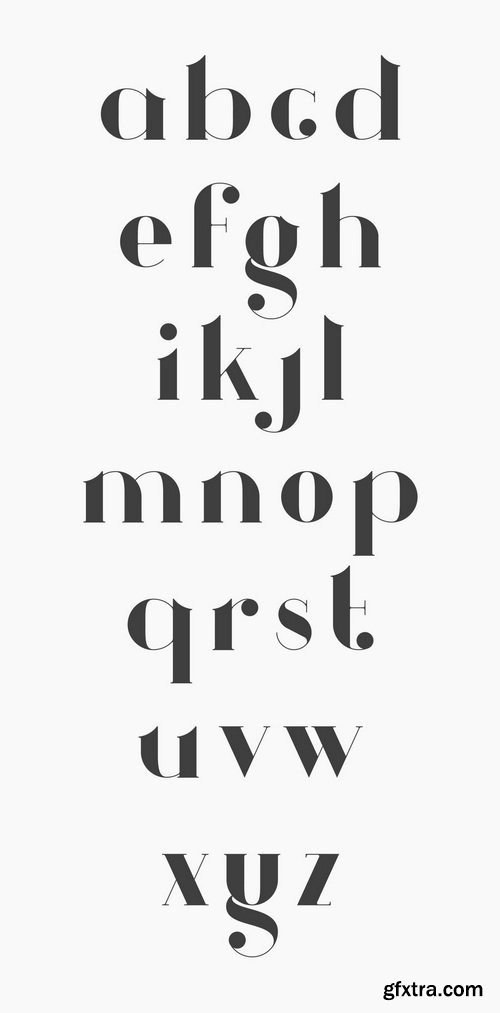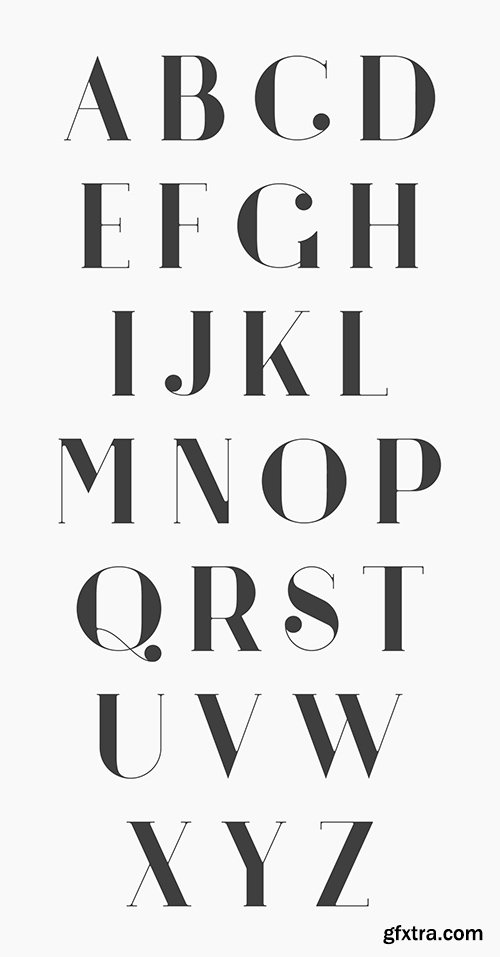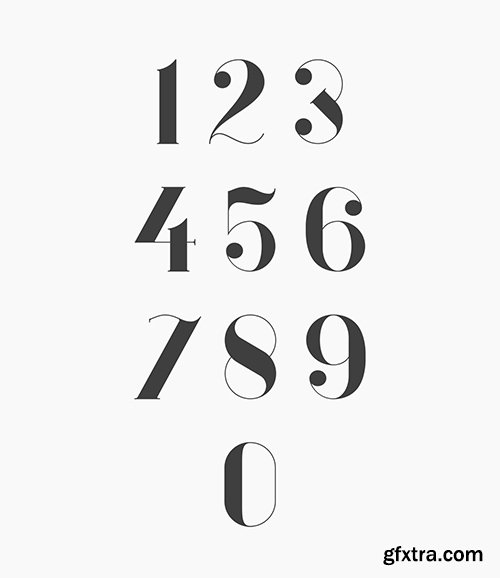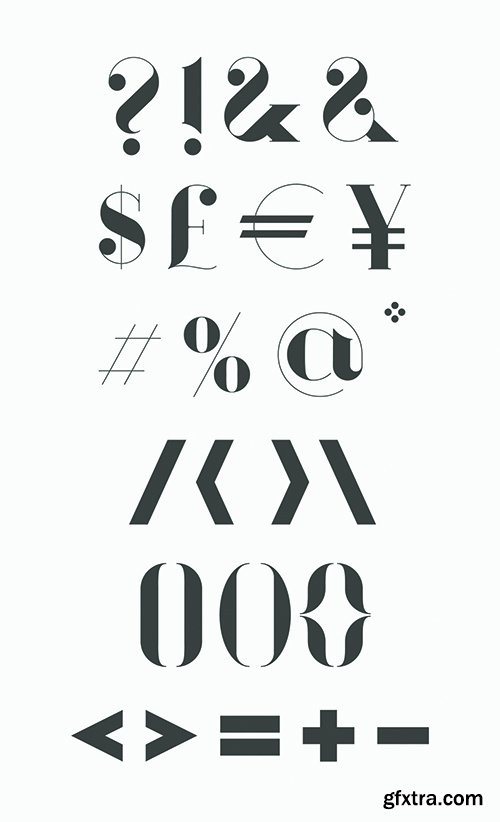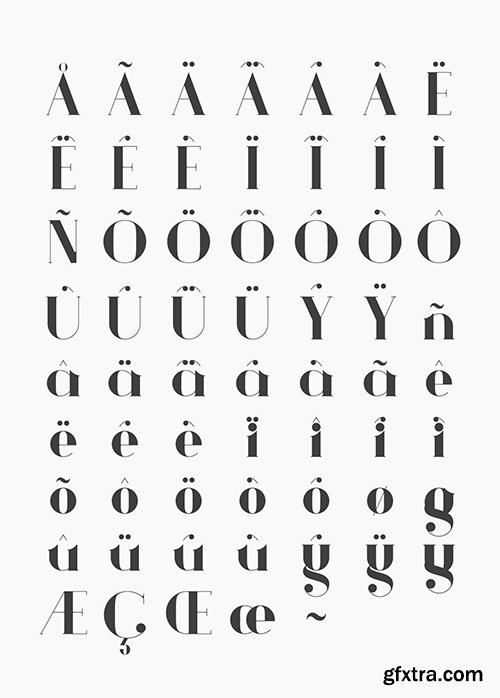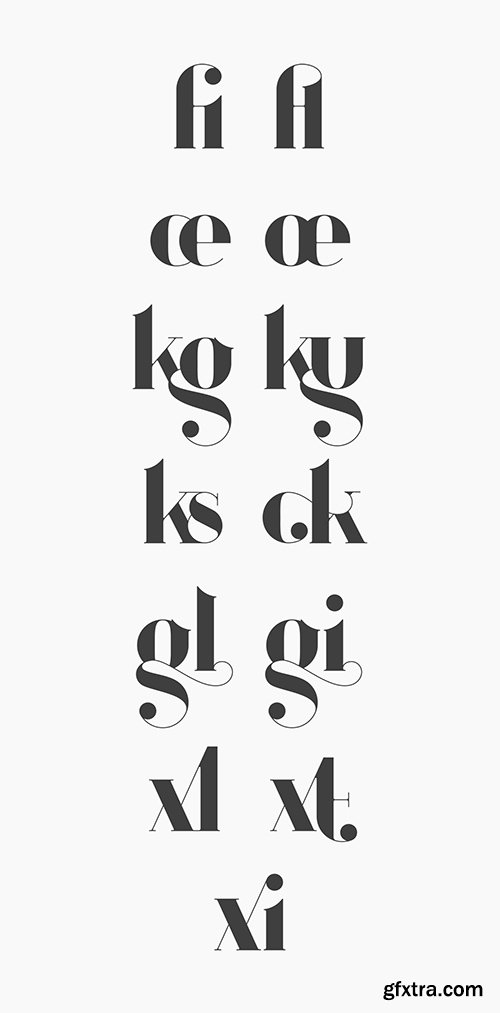
Argö - Art Deco Typeface by Antony James
Argo Font Family
- Argö is a serif typeface designed initially as an Art Deco display font, but with a few changes to traditional aesthetics. Horizontal lines have been replaced with Medieval themed ascenders to allow for more flow and versatility, incase the user intends to manipulate the typeface. Argö contains 180 characters including uppercase, lowercase, numbers, glyphs, ligatures and accents. Alternative letters with shorter descenders have been included, that are more appropriate when writing lines of text.